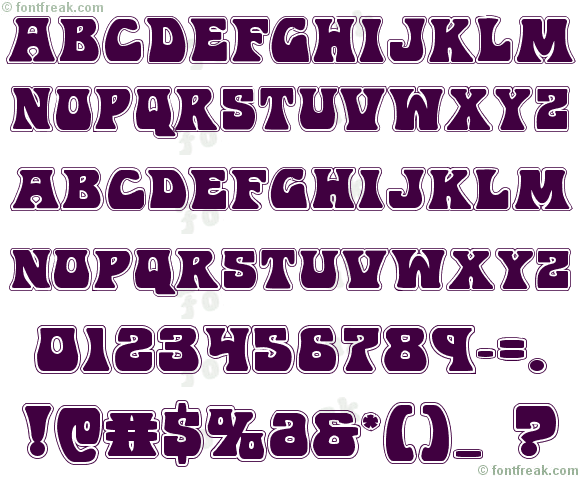
Hip Pocket Outline
Hip Pocket Outline is a distinctive display font designed by Daniel Zadorozny, released under a freeware license. This font falls into the decorative category, characterized by its playful and bold outline style. The design features a unique combination of condensed and expanded letterforms, giving it a dynamic appearance. The stroke weight is consistent throughout, with light contrast that enhances its legibility while maintaining a fun vibe. The letters are spaced well, ensuring clarity even at larger sizes, making it ideal for eye-catching applications.
This font is particularly well-suited for a variety of creative projects. It shines in contexts like event flyers, where its playful nature can draw attention to announcements or special events. Additionally, the Hip Pocket Outline font can be effectively used in children's book covers, where its whimsical style resonates with younger audiences. Restaurant menus can also benefit from its engaging look, adding a casual yet inviting touch to the dining experience. Graphic designers may find it useful for branding projects, especially for businesses aiming for a youthful and vibrant identity.
The target audience for this font includes graphic designers, small business owners, and content creators who are looking for a distinctive way to express their creativity. Whether you’re crafting promotional materials or designing merchandise, Hip Pocket Outline offers a unique flair that can elevate any project.
What sets the Hip Pocket Outline font apart is its ability to blend fun with functionality. Its bold, outlined design commands attention while remaining versatile enough for various applications. The font's engaging personality invites creativity, making it a perfect choice for those who want to stand out. For anyone interested, the Hip Pocket Outline font free download is available, allowing you to incorporate this unique style into your own projects seamlessly.